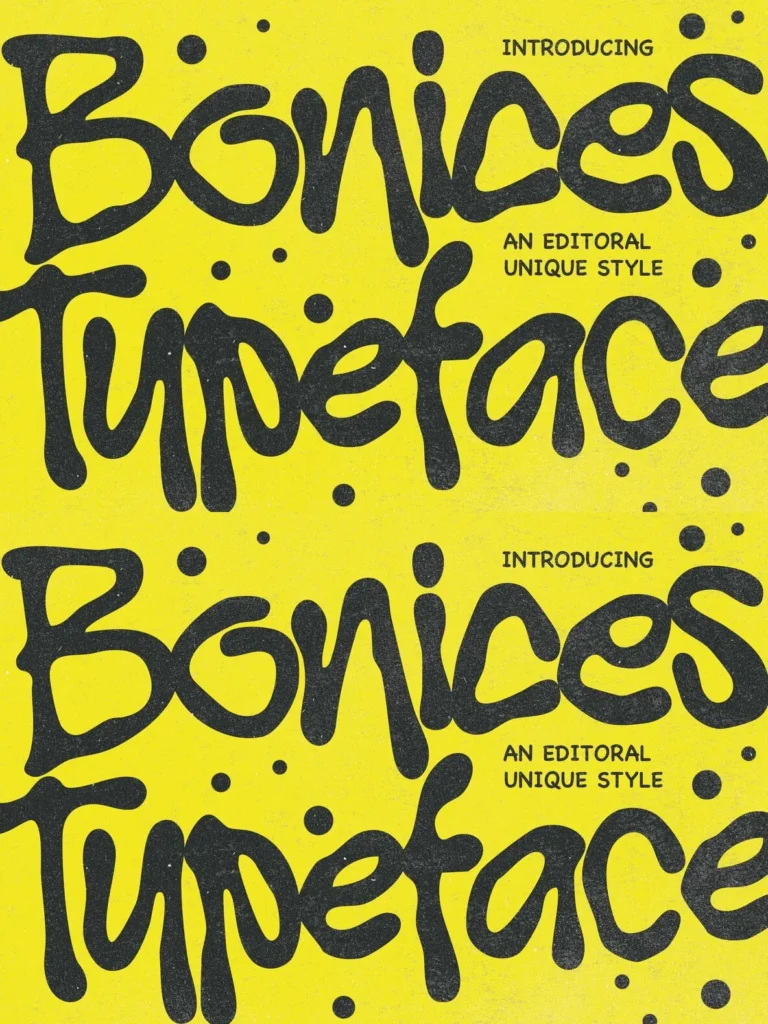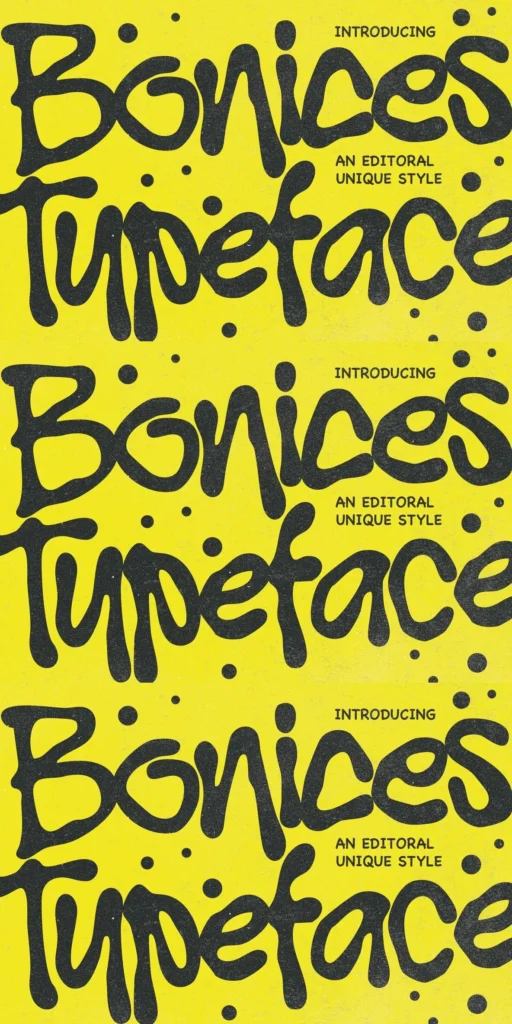
Bonices — Rebellious Letters with Bite
Bonices is a bold, expressive display typeface shaped by raw hand-drawn lettering, underground zine culture, and rebellious editorial design. Its fluid, organic forms and playful imperfections give each composition a strong visual personality. The result feels energetic, unconventional, and hard to ignore.
Made for work that needs a loud statement, Bonices suits music posters, album covers, magazine headlines, streetwear branding, creative packaging, social media graphics, and experimental visual projects. Its handcrafted appearance adds a human touch while keeping a contemporary, trend-driven aesthetic. Use Bonices when your design needs artistic character, an edgy voice, and an approachable sense of spontaneity.